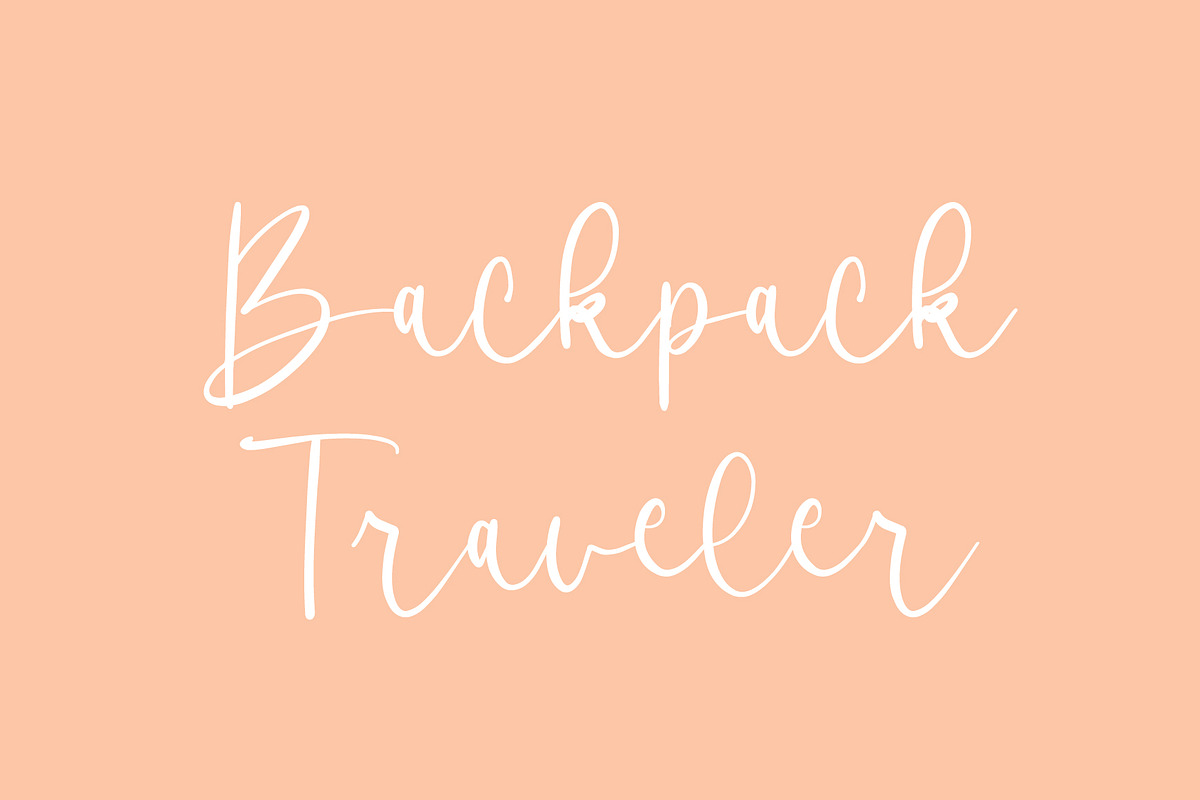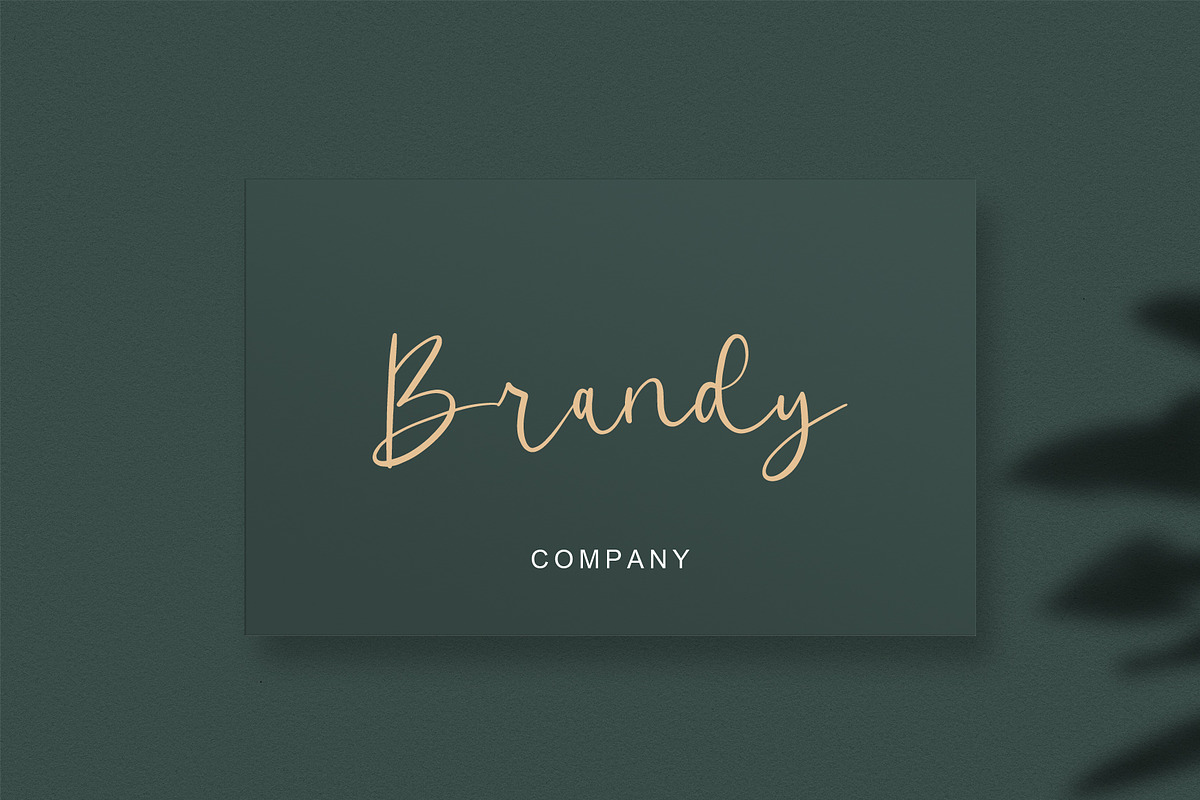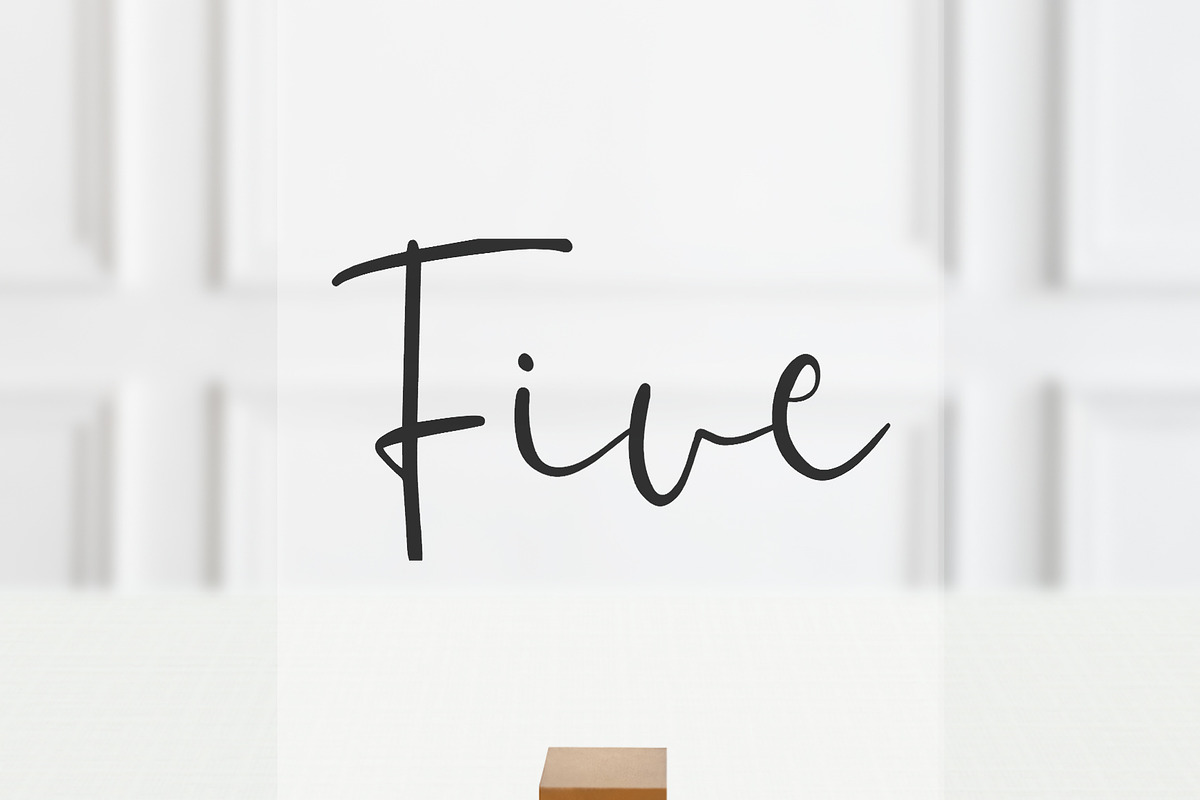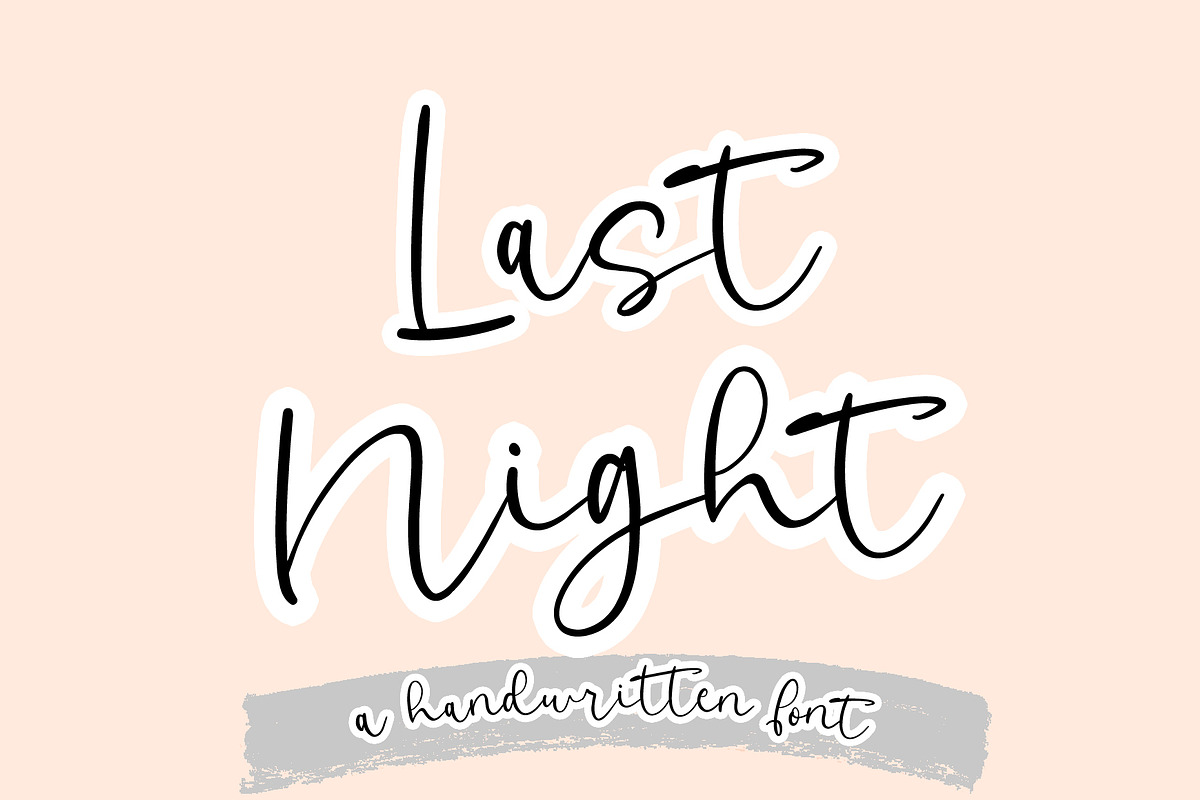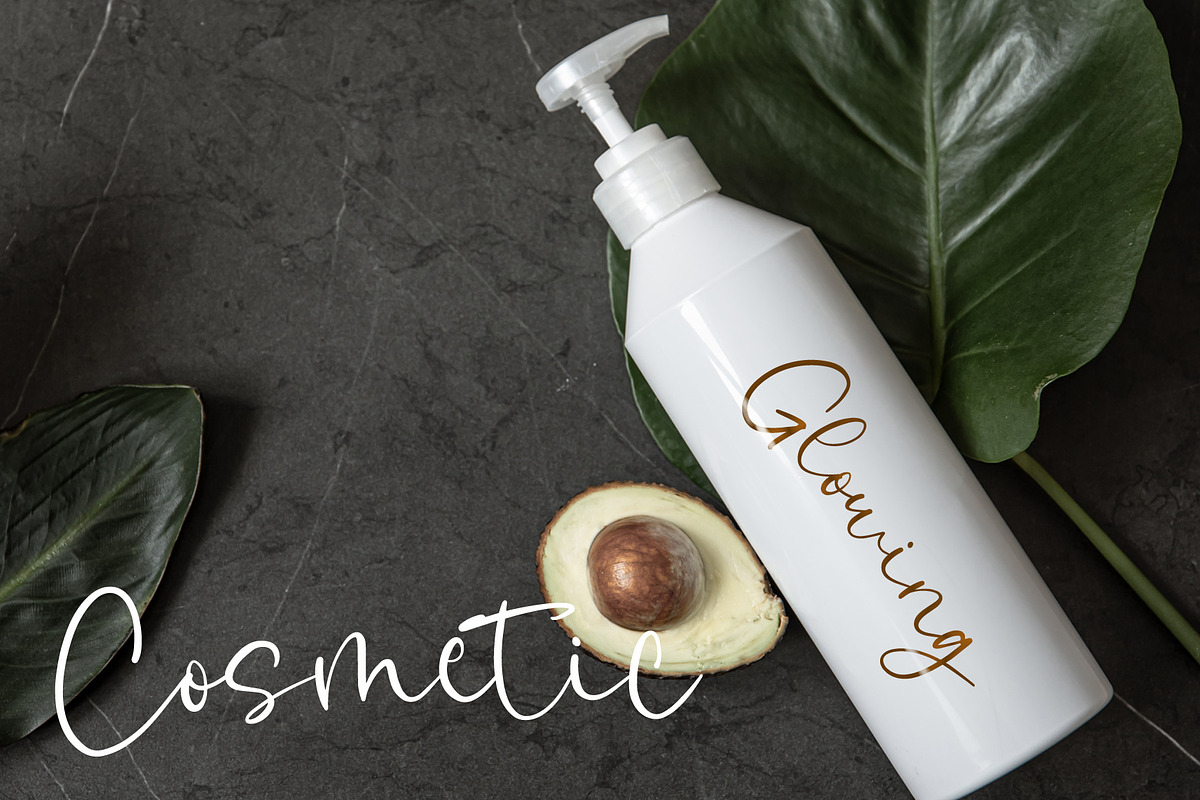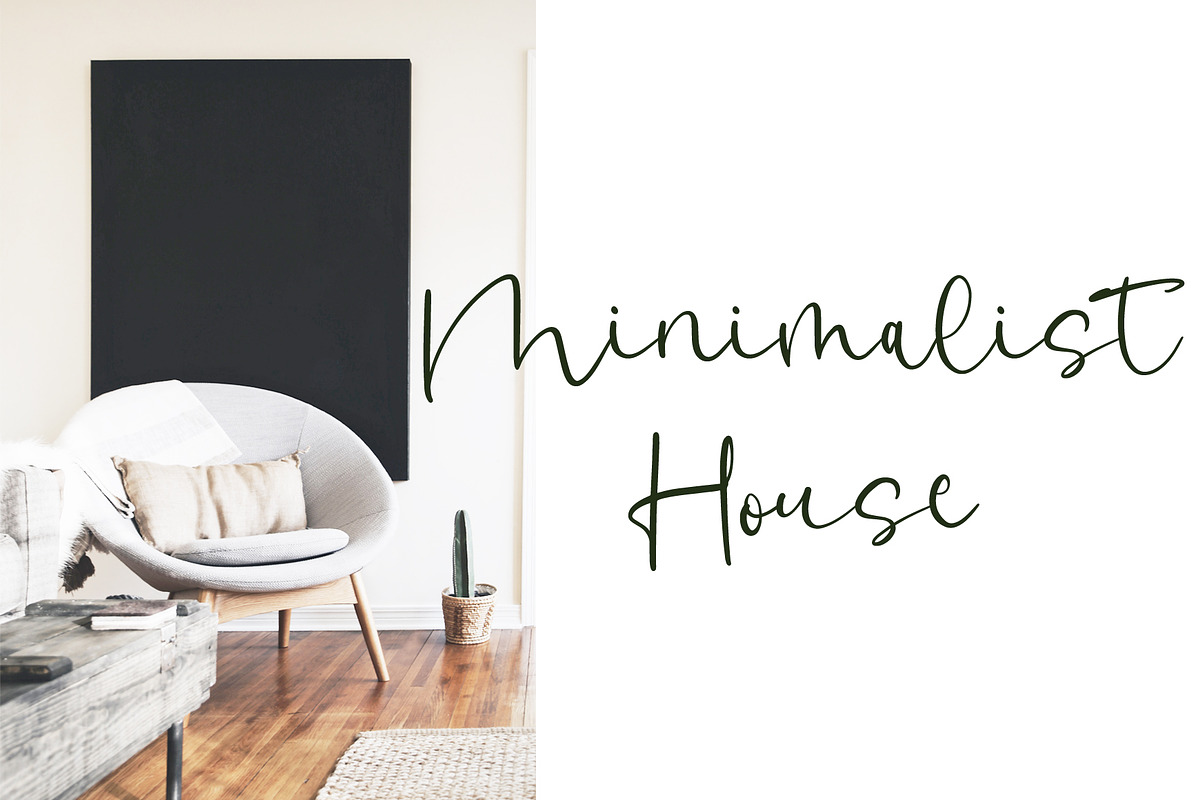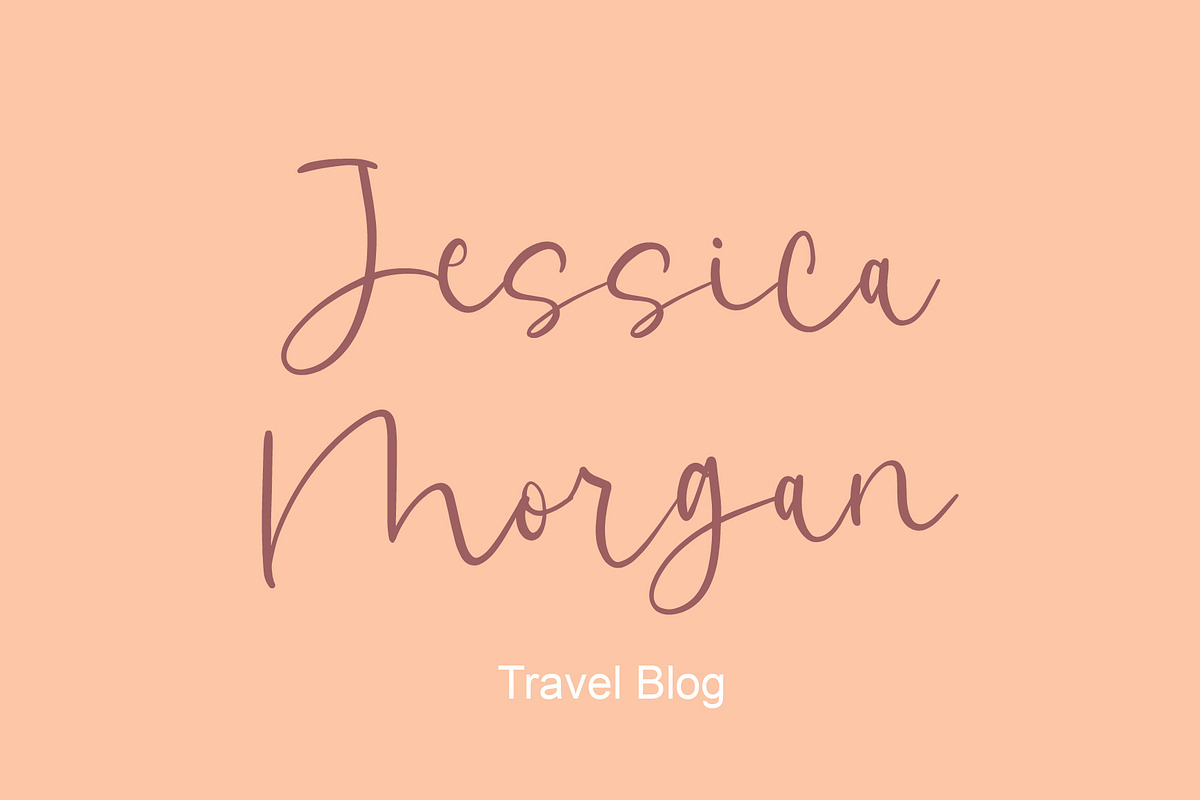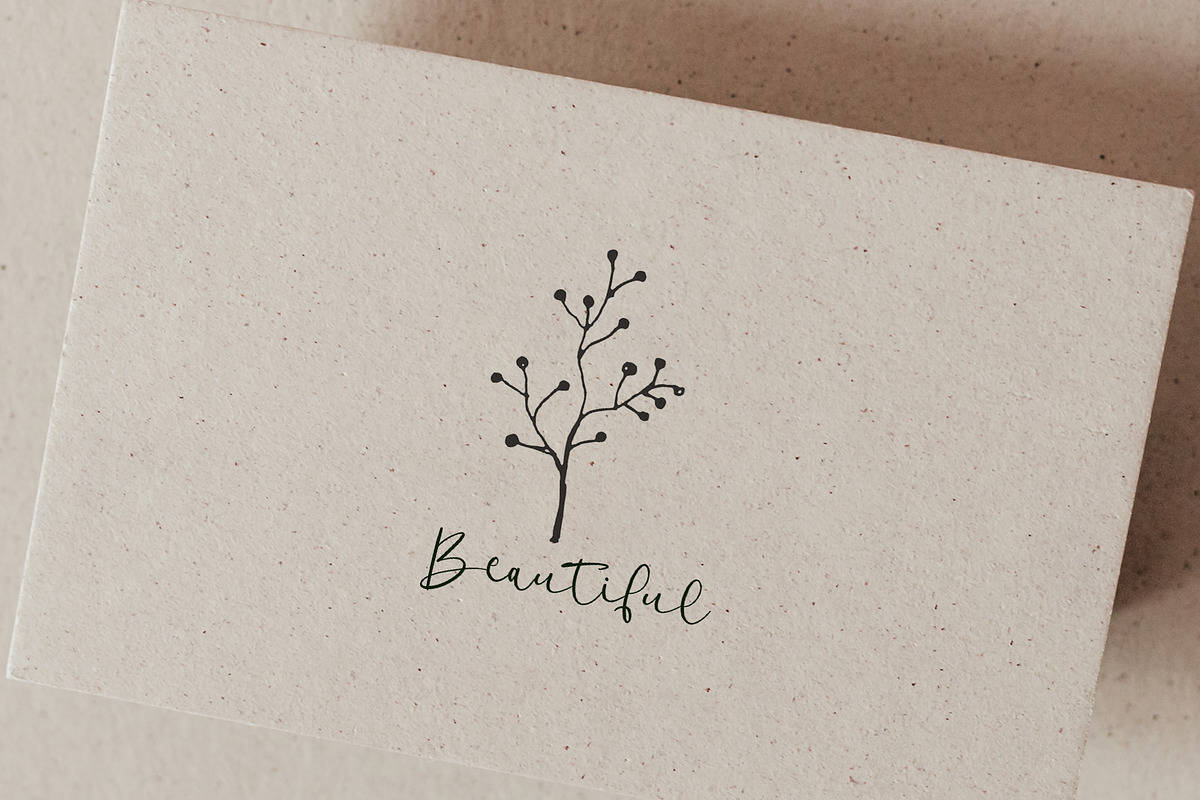
Last Night | Handwritten Font
Introducing Last Night Handwritten Font is a distinctive and beautiful handwritten font. You can customize Last Night to your liking to create a unique style. The Last Night handwritten font can also be used for various projects such as invitation design, stationery, social media, logos, wedding designs, branding, cards and more. and can be combined with a variety of serif and sans fonts to enhance the projects you want to work on.